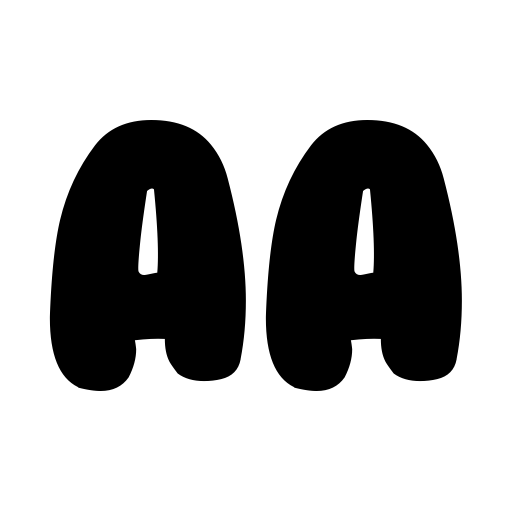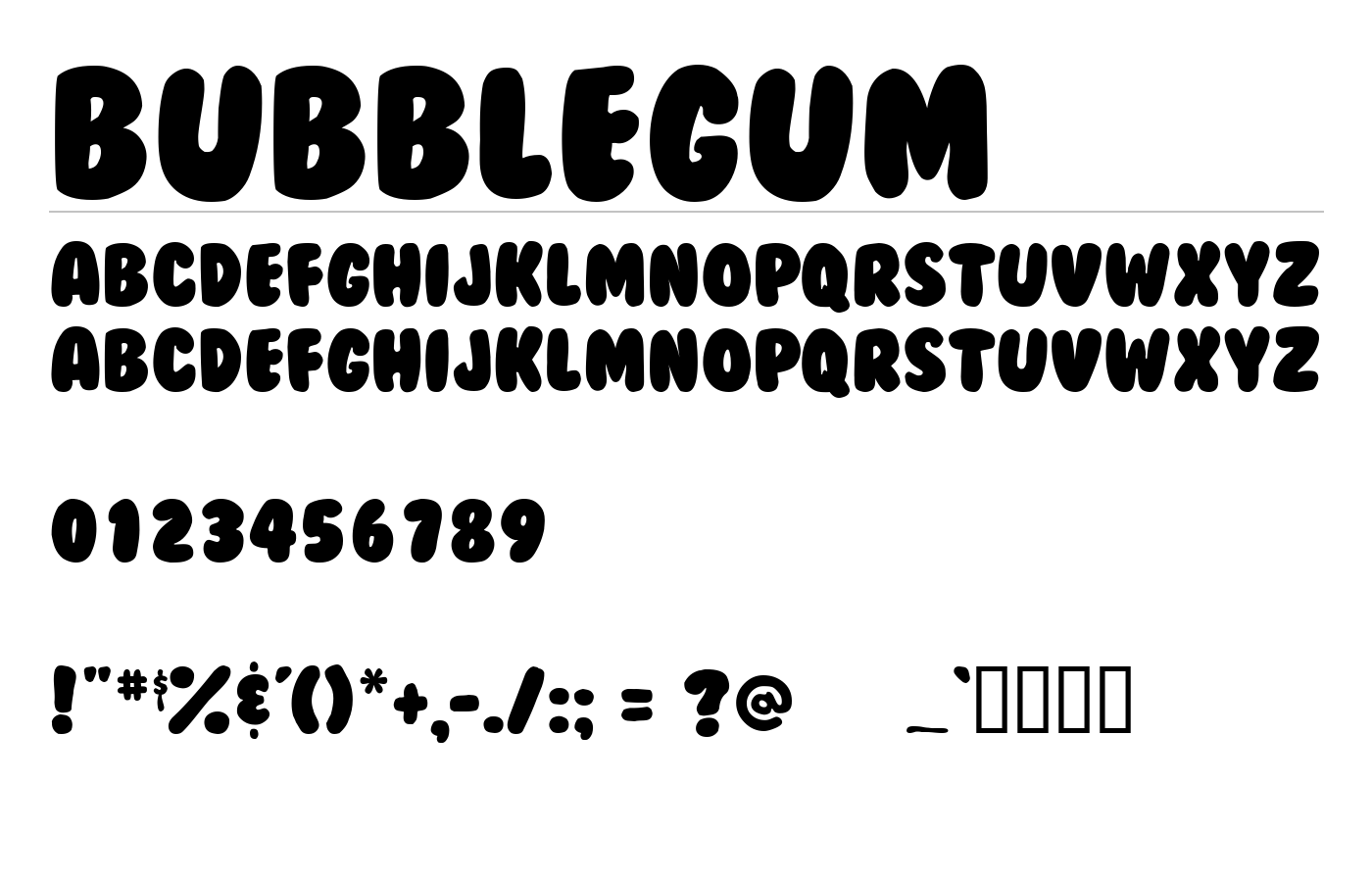
BubbleGum Font is a bold, playful sans-serif typeface with rounded, chunky letterforms that create a fun and friendly vibe. Its thick strokes, high x-height, and soft, bubble-like shapes make it ideal for lively branding, children’s products, and casual designs where approachability and energy are key. This font works best in headlines, logos, and packaging that aim to capture a youthful and cheerful spirit.
BubbleGum Font